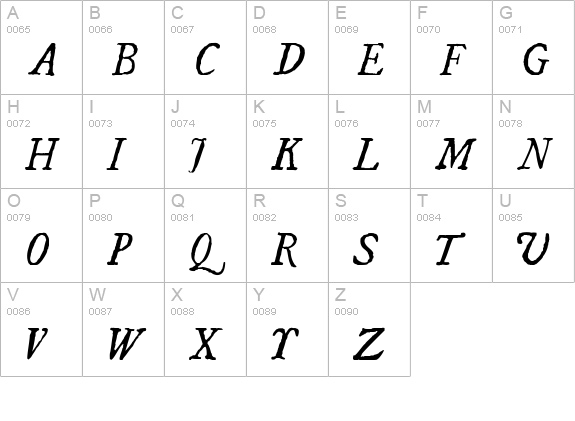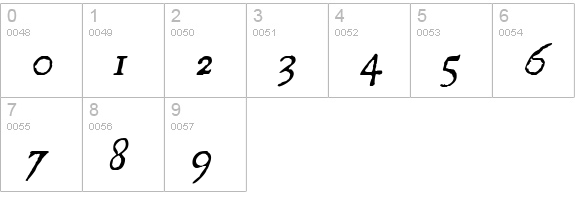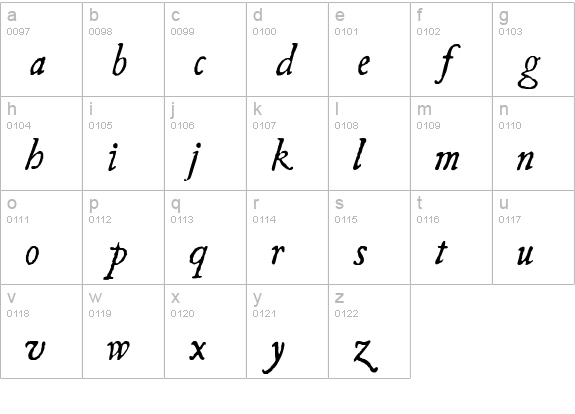
UglyQua-Italic Font Details
UglyQua-Italic is a distinctive, italic variant in the UglyQua typeface family \xE2\x80\x94 well suited to design and typography projects.
Introducing UglyQua-Italic, a unique and eccentric font that breaks the mold of conventional typography. With its irregular curves and playful slant, UglyQua-Italic adds a touch of quirkiness to any design project. This font is the perfect choice for those seeking to add a distinct and unconventional flair to their creations. Whether you're designing a logo, crafting a poster, or creating a whimsical invitation, UglyQua-Italic will instantly inject personality and charm into your work. What sets UglyQua-Italic apart is not only its unconventional design, but also its accessibility. We believe that creativity should be freely expressed, and that's why UglyQua-Italic is available for free download at FontsMarket.com. Now, you can unleash your imagination and experiment with this captivating font without any barriers. UglyQua-Italic's versatility knows no bounds. Its bold and expressive strokes make it ideal for headlines and attention-grabbing titles, while its legibility ensures readability even at smaller sizes. It seamlessly blends into various design styles, whether you're going for a retro vibe or a contemporary look. With UglyQua-Italic, you have the power to transform any project into a visual masterpiece. Embrace its unconventional beauty and let your creativity soar. Download UglyQua-Italic today at FontsMarket.com and set your designs apart from the ordinary.